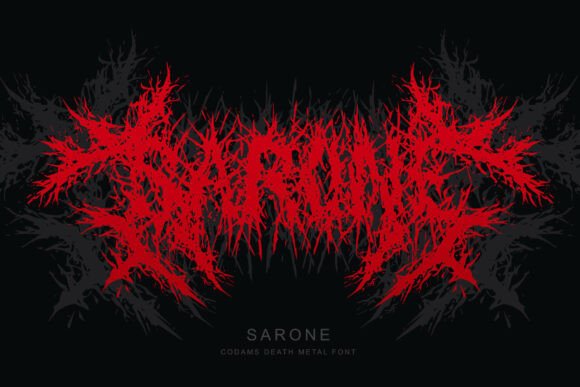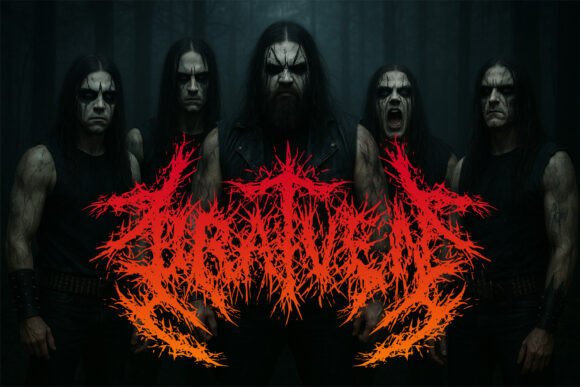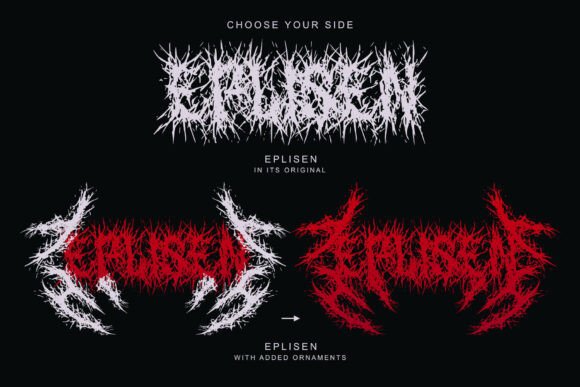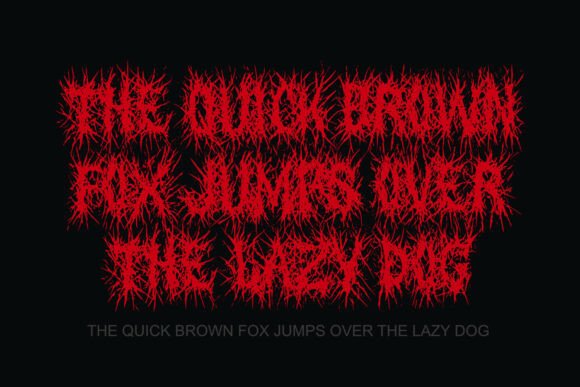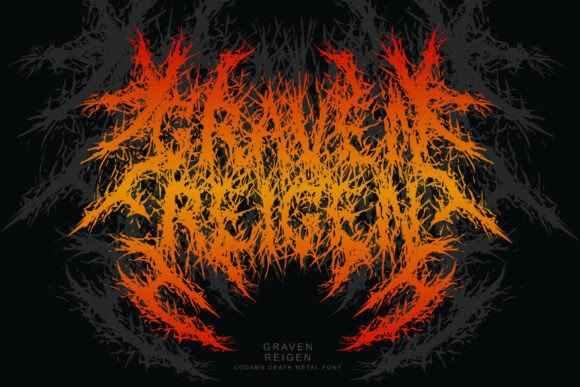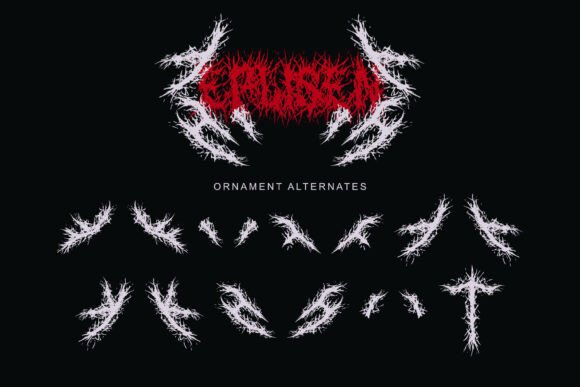
Codmas Font: Unleash the Fury of Brutal Death Metal in Your Designs
In the realm of typography, few fonts capture the essence of raw energy and uncompromising power as effectively as Codmas. Born from the ferocity of Brutal Death Metal, this font is not just a typeface—it’s a statement, a rebellion, and a call to arms for those who live and create on the edge. If you’re a designer, crafter, or simply someone who appreciates the aesthetic of extreme music, Codmas is about to become your new go-to font for projects that demand a touch of chaos and a lot of character.
The Inspiration Behind Codmas
Brutal Death Metal, known for its aggressive sound, complex structures, and often dark or abstract themes, presents a unique challenge for typography. The genre’s visual identity is as much about the music as it is about the imagery and typography that accompany it. Codmas Font draws inspiration from this world, embodying the relentless aggression and dark majesty that define it. Each letterform is a testament to the destructive power and intense energy of Brutal Death Metal, making Codmas not just a font, but a symbol of resistance and raw creative power.
Design Features of Codmas
Codmas is meticulously crafted to reflect the brutal yet intricate nature of its musical muse. Here are some of its standout features:
- Aggressive Lines and Sharp Edges: The font boasts sharp, jagged lines and edges, reminiscent of the aggressive riffs and intense blast beats characteristic of Brutal Death Metal.
- Complex Letterforms: Inspired by the intricate structures of death metal songwriting, Codmas features complex and detailed letterforms that are as much a pleasure to look at as they are to use in design.
- Dark and Moody Aesthetic: The overall aesthetic of Codmas is dark, moody, and foreboding, capturing the essence of the themes often explored in Brutal Death Metal lyrics.
Using Codmas in Your Projects
Codmas is versatile and can be used across a variety of projects, from graphic design and branding to crafting and DIY projects. Here are some ideas to get you started:
- Merchandise: Create eye-catching merchandise for bands, artists, or your own brand. T-shirts, posters, and flyers can all benefit from the bold statement Codmas makes.
- Branding: If your brand or business embodies the spirit of rebellion, resilience, or raw energy, Codmas can be a perfect fit for your logo or marketing materials.
- Art and Crafting: Whether you’re creating art, jewelry, or any form of craft, Codmas can add an edge to your work, making it stand out with its unique aesthetic.
Why Choose Codmas?
In a sea of generic fonts, Codmas stands out for several reasons:
- Uniqueness: Codmas offers a unique look that is sure to make your projects stand out.
- Versatility: Despite its aggressive inspiration, Codmas can be adapted to various design needs, from digital to print.
- Community: By choosing Codmas, you’re not just getting a font; you’re becoming part of a community that values creativity, rebellion, and the pursuit of the extraordinary.
Codmas Font is more than just a typeface; it’s a declaration of independence, a rejection of the mundane, and an embrace of the extreme. Whether you’re a designer looking for a font that makes a statement, a crafter seeking to add an edge to your work, or simply a fan of Brutal Death Metal, Codmas offers a way to awaken chaos in your designs. Unleash the fury, raw energy, and uncompromising power of Codmas in your next project and experience the difference for yourself.